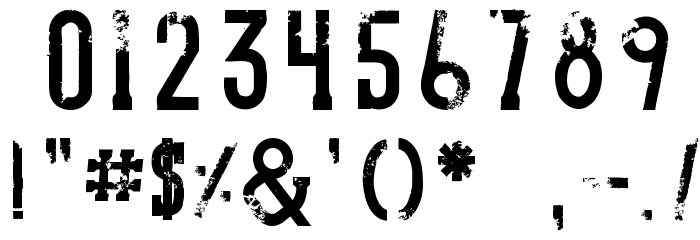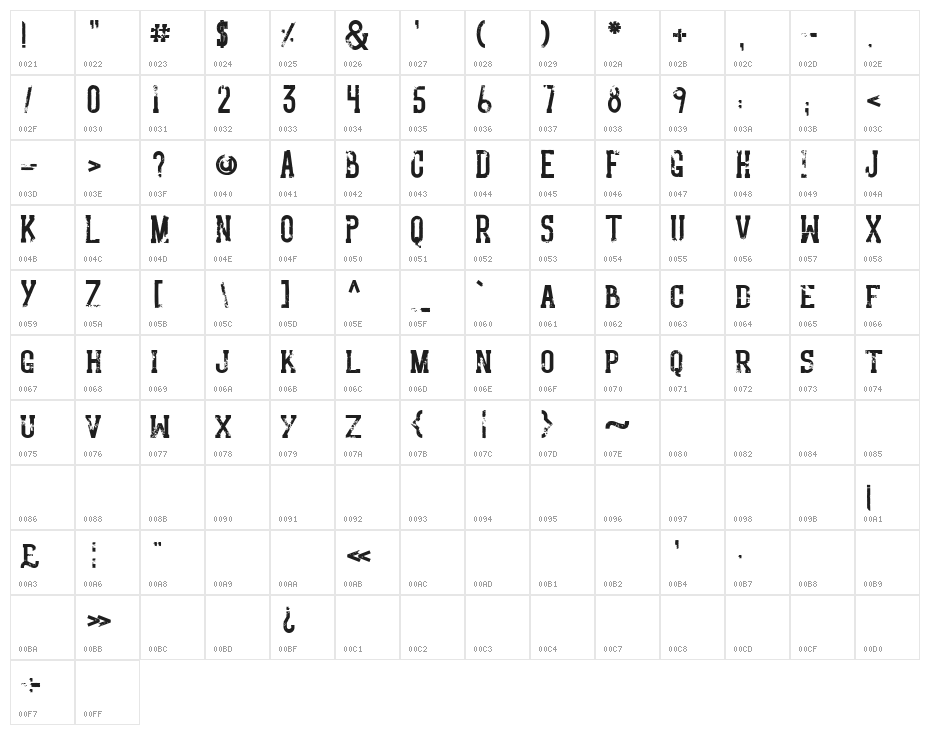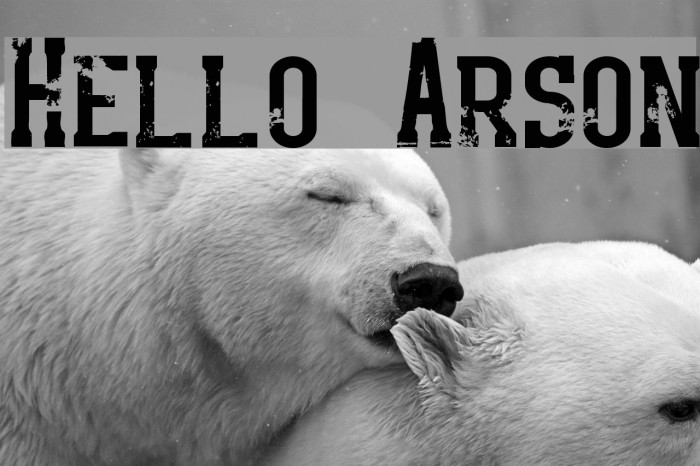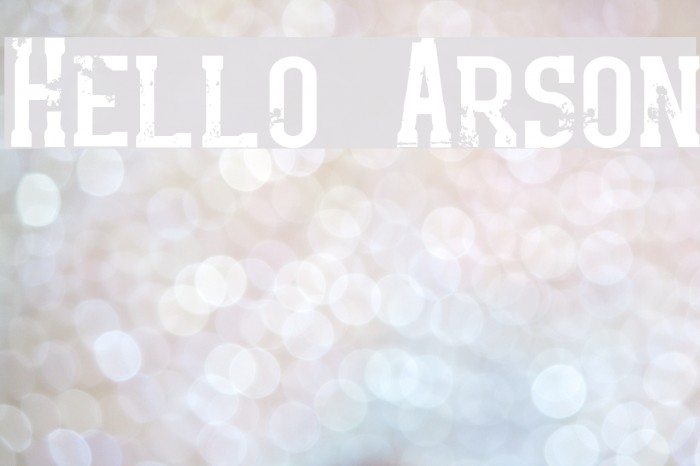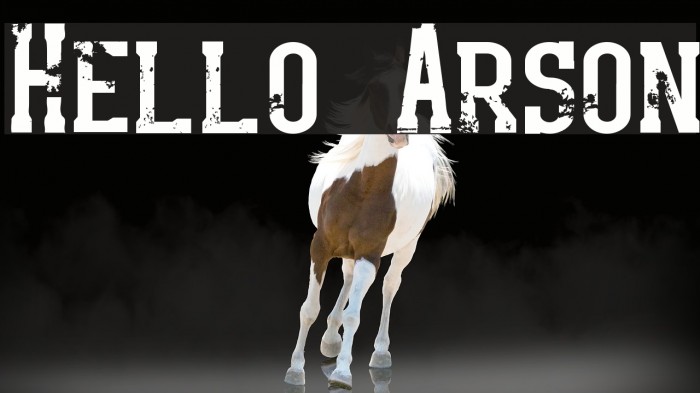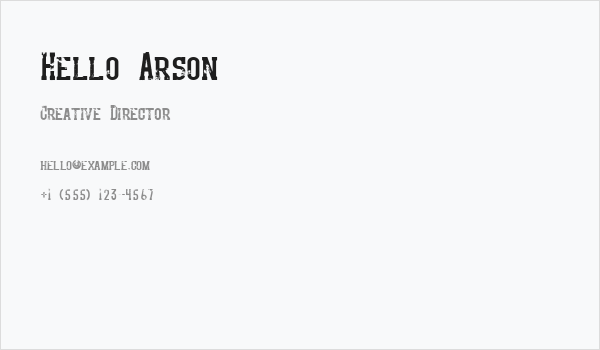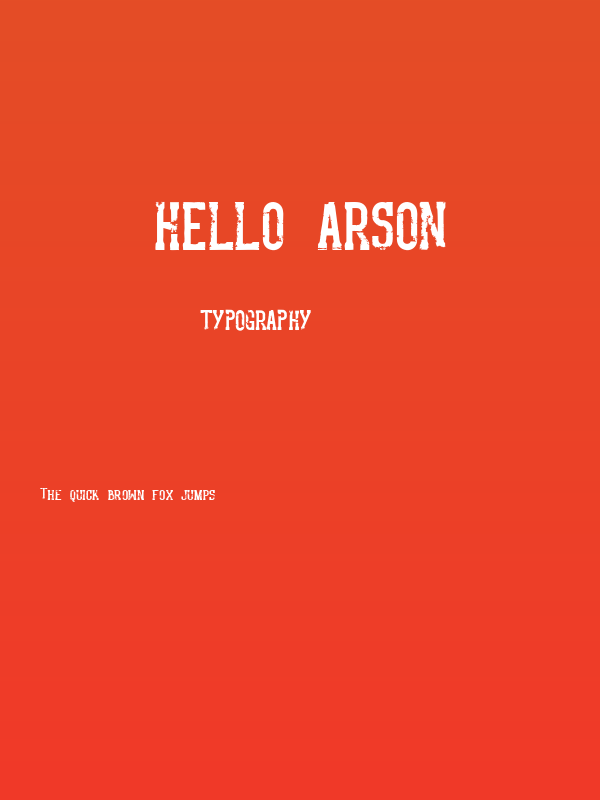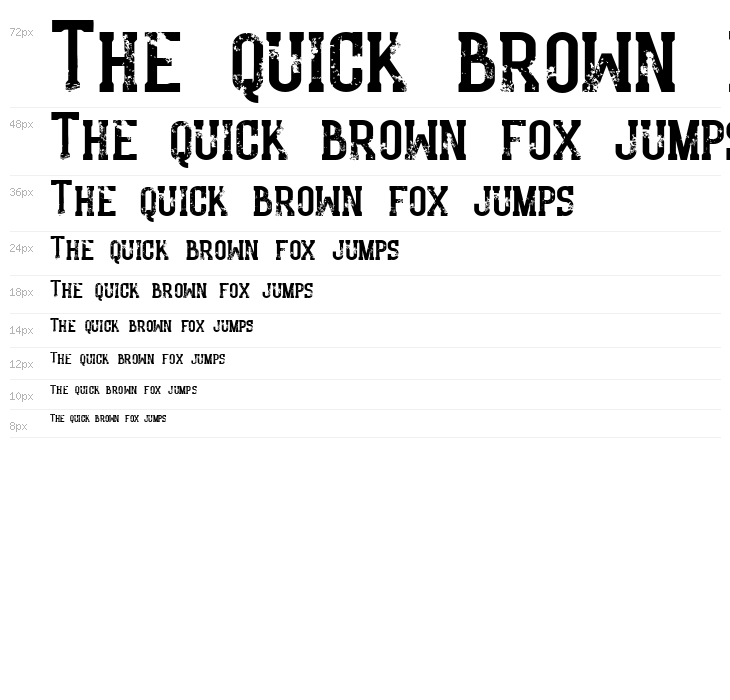
Hello Arson Font
Hello Arson Description
This font features a distressed, grunge style with a bold and impactful appearance. The characters are uppercase and lowercase alphabets, numerals, and a variety of special symbols. Each letter is designed with a rough, textured effect that gives it a worn, vintage look. The strokes are thick, providing a strong presence, while the irregular edges and distressed details add a unique character to the font. This style is reminiscent of old, weathered signage or print, making it ideal for projects that require a rugged or rebellious aesthetic.
| Proposed Projects | Ideal for posters, album covers, branding for edgy or alternative products, and any design needing a rugged, vintage touch. |